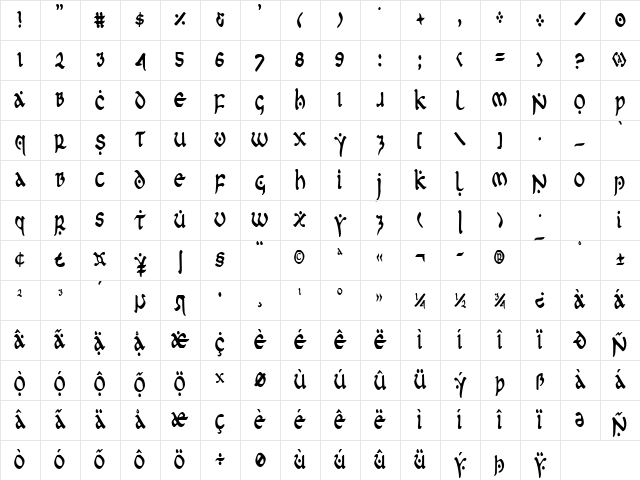
Complete First Order Condensed glyph index. Displaying only characters natively supported by First Order Condensed font.
First Order is a composed and adaptable typeface that performs quietly and consistently across a wide range of design contexts. Its narrow stance lets it pack a punch even in space-constrained designs.